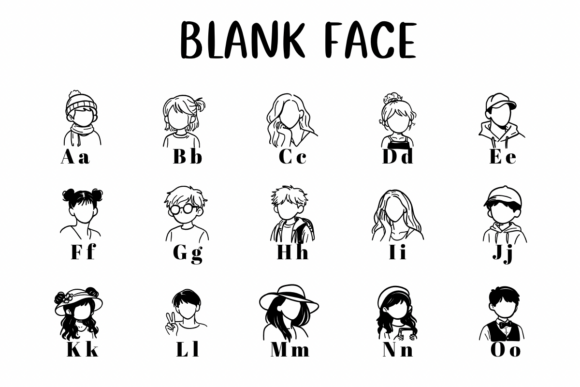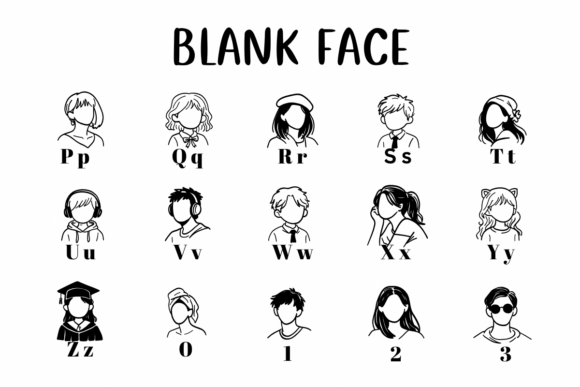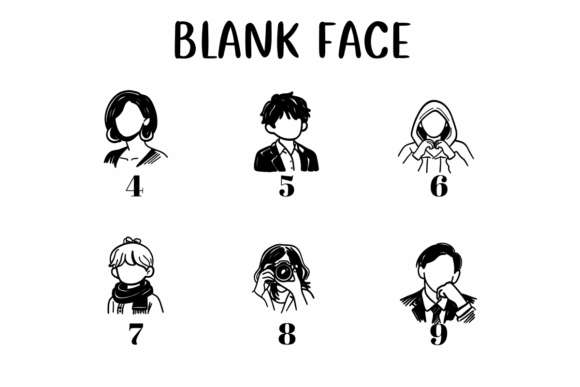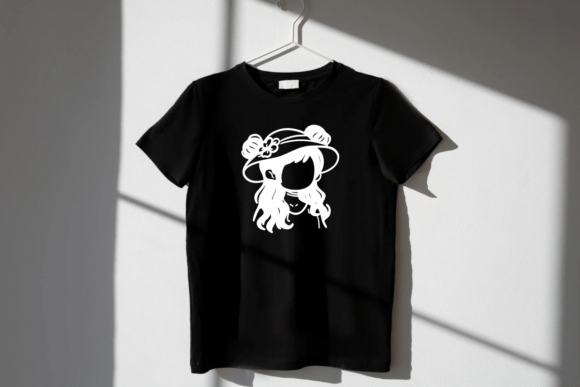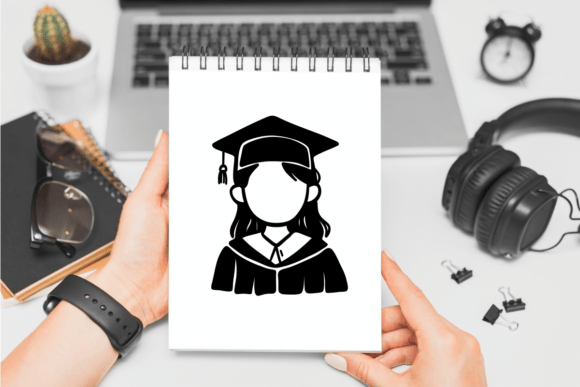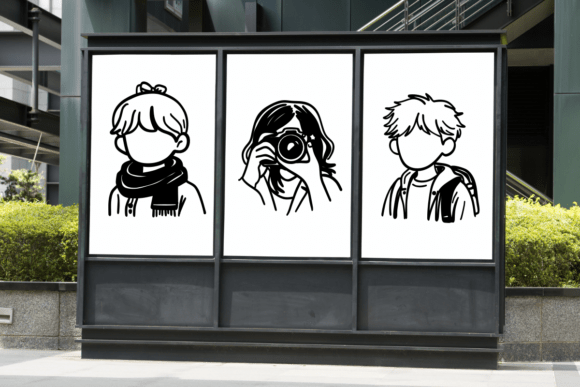
Add a Personalized yet Mysterious Touch to Your Creative Projects with Blank Face Font
Are you tired of using the same old fonts in your creative projects? Do you want to add a touch of personality and mystery to your designs? Look no further than the Blank Face font, a unique dingbats font featuring a wide array of hand-drawn character silhouettes. This typeface replaces traditional alphanumeric characters with minimalist avatar illustrations, making it the perfect addition to your design toolkit.
What is Blank Face Font?
The Blank Face font is a one-of-a-kind typeface that replaces traditional characters with hand-drawn silhouettes of people from all walks of life. From students in graduation caps to trendy urbanites with headphones, this font features a diverse range of characters that are sure to add a touch of personality to your designs. The best part? Each character features “blank” facial features, making them anonymous and perfect for use in a variety of creative projects.
Features of Blank Face Font
The Blank Face font has a number of features that make it an incredible resource for designers. Some of the key features include:
- Hand-drawn character silhouettes: Each character in the Blank Face font is carefully hand-drawn, giving the font a unique and personal touch.
- Wide array of characters: The font features a wide range of characters, from students and professionals to people enjoying leisure activities.
- Blank facial features: The anonymous facial features of each character make them perfect for use in a variety of creative projects.
- Clean, vector-style lines: The font features clean, vector-style lines that remain crisp at any scale, making it perfect for use in both digital and print designs.
Uses for Blank Face Font
The Blank Face font is incredibly versatile, making it perfect for use in a wide range of creative projects. Some of the most popular uses for the font include:
- Social media avatars: The anonymous characters in the Blank Face font make them perfect for use as social media avatars.
- Educational worksheets: The font is a great resource for teachers, who can use it to create engaging and interactive educational worksheets.
- Modern lifestyle infographics: The clean, vector-style lines of the font make it perfect for use in modern lifestyle infographics.
- User personas: The font is a great resource for designers who need to create user personas for their projects.
- Community-based branding: The Blank Face font is perfect for use in community-based branding projects, where a personalized and mysterious touch is desired.
Tips for Using Blank Face Font
To get the most out of the Blank Face font, here are a few tips to keep in mind:
- Pair with a simple, thin handwriting font: Pairing the Blank Face font with a simple, thin handwriting font can help to create a cohesive, contemporary storytelling aesthetic.
- Use in combination with other design elements: The Blank Face font is a great resource for designers, but it can be even more effective when used in combination with other design elements, such as images and graphics.
- Experiment with different colors and textures: Don’t be afraid to experiment with different colors and textures when using the Blank Face font. This can help to add depth and interest to your designs.
The Blank Face font is an incredible resource for designers and crafters who want to add a personalized yet mysterious touch to their creative projects. With its wide array of hand-drawn character silhouettes, clean vector-style lines, and anonymous facial features, this font is perfect for use in a wide range of creative projects. Whether you’re building a community, creating educational worksheets, or designing modern lifestyle infographics, the Blank Face font is sure to be a valuable addition to your design toolkit.